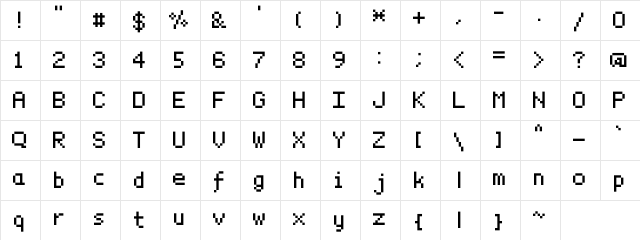
GraphicPixel Regular
Design Context for GraphicPixel
GraphicPixel is rooted in pixel-grid construction, making it a natural fit for game UI, retro computing aesthetics, and digital nostalgia projects.
Well-suited to indie game interfaces, retro computing aesthetics, and pixel art-adjacent design work.
Font Pairing: Pairs well with a humanist sans-serif for body copy - the contrast between mechanical precision and organic warmth creates a compelling typographic dynamic.
Pro Tip: Use GraphicPixel at sizes that align with its pixel grid for the sharpest rendering - scaling to non-integer multiples can introduce unwanted blur.